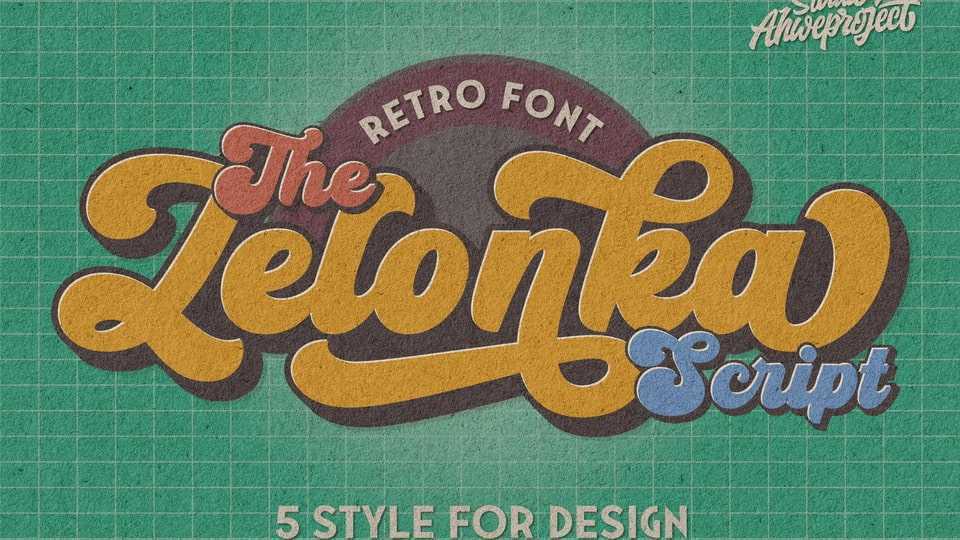
Download Zelonka Script font, a bold retro typeface with an unmistakable vintage charm. Perfectly designed to bring a groovy, nostalgic vibe to your projects.